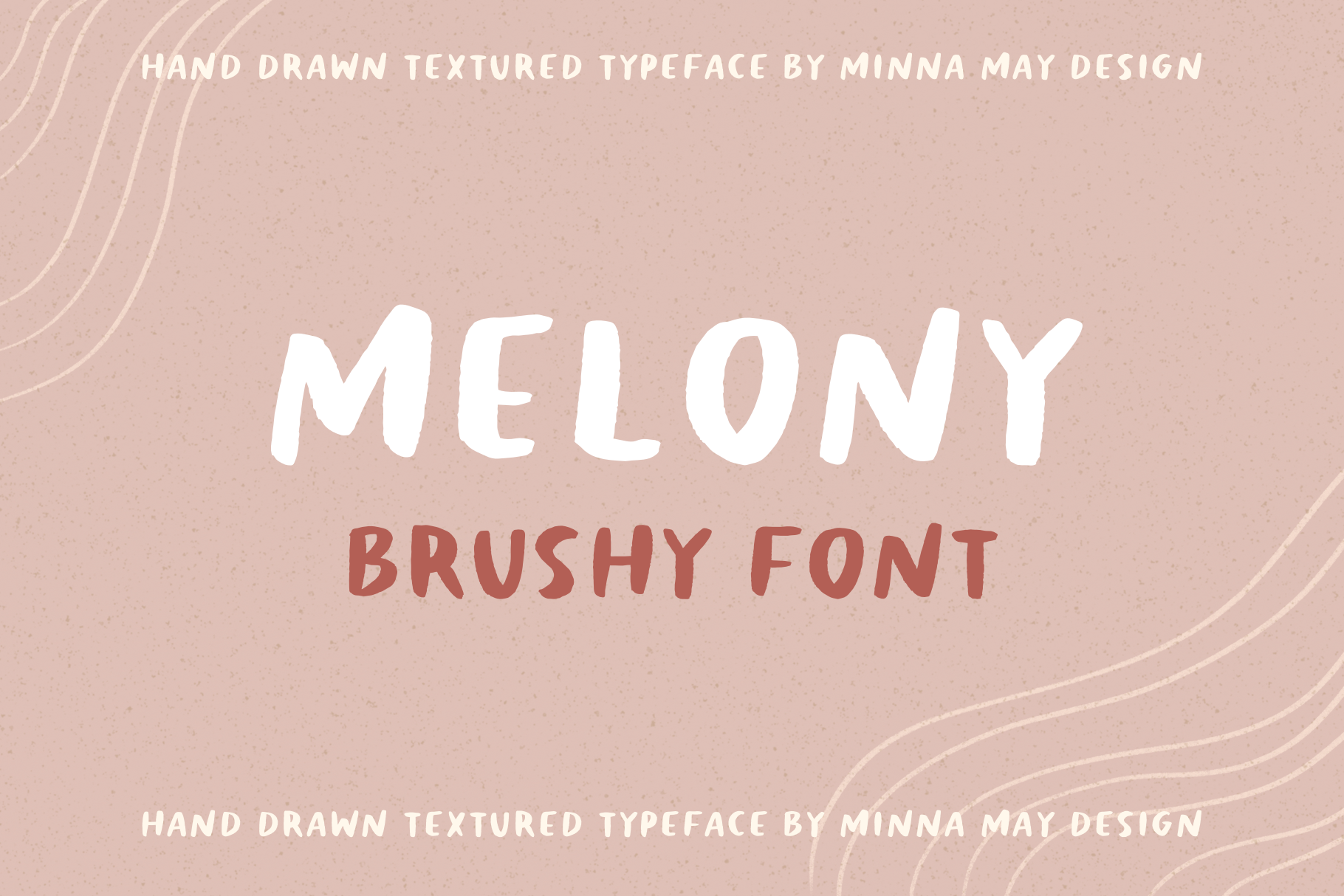
Melony Hand Drawn Brushy Font
MELONY - a natural brushy typeface. Its hand drawn style provides an imperfect look, perfect to add a handmade touch to your projects. Use for logos, quotes, invitations, blog posts, business cards, presentations and more! This font is all caps and includes full numbers and punctuation.
• Regular
• Numbers & Punctuation